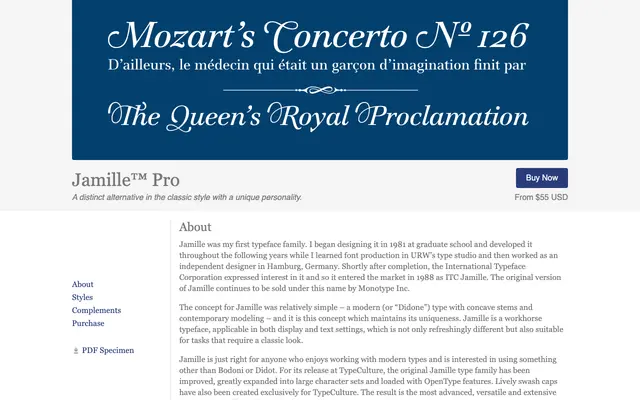
Jamille™ Pro
Type Culture · Mark Jamra · 1988
A Didone serif with concave stems and contemporary modelling, originally released as ITC Jamille in 1988 and now greatly expanded for TypeCulture with swash caps and extensive OpenType features.
Designed by Mark Jamra from 1981 and first brought to market through ITC in 1988, this modern serif occupies the same territory as Bodoni and Didot but with a distinct approach to stem modelling that sets it apart. The TypeCulture release adds large character sets, lively swash caps exclusive to this edition and a full suite of OpenType features including multiple figure styles, fractions and historical forms. The family covers three weights with matching italics and functions across both text and display settings.
Described explicitly as a modern or Didone type with concave stems and contemporary modelling, placing it squarely in the high-contrast rational serif tradition associated with Bodoni and Didot.